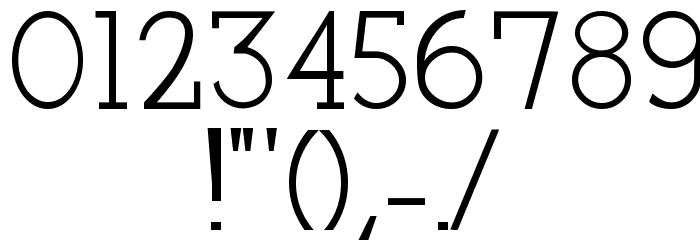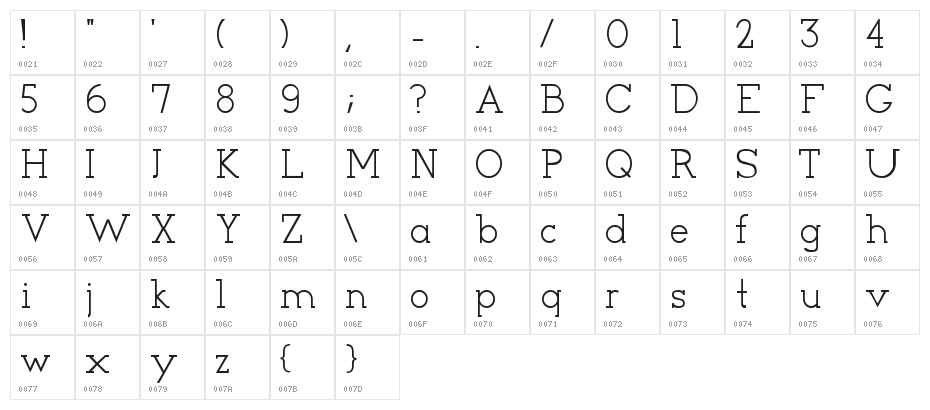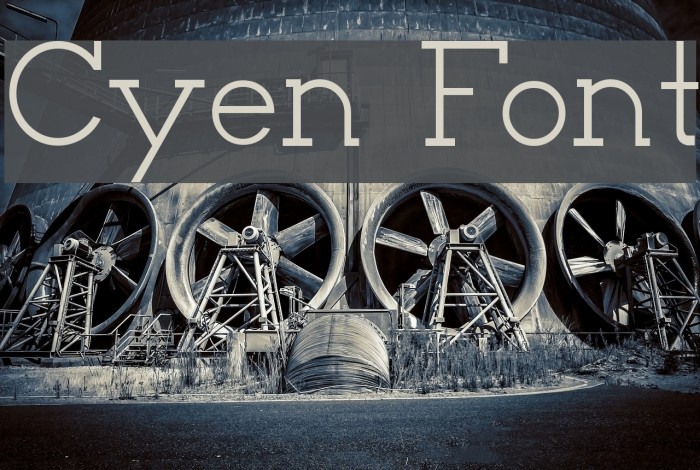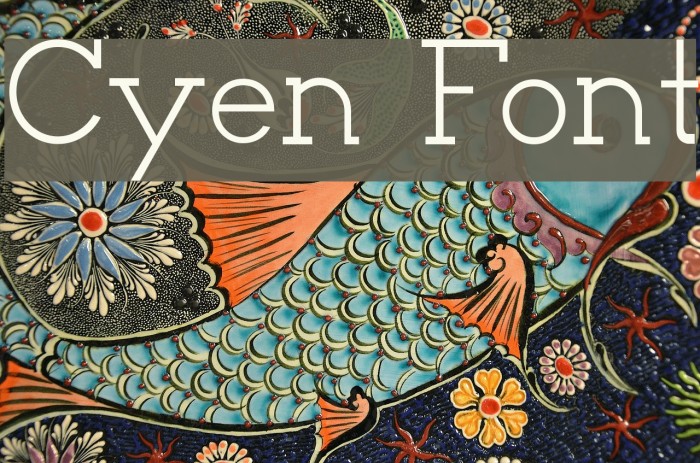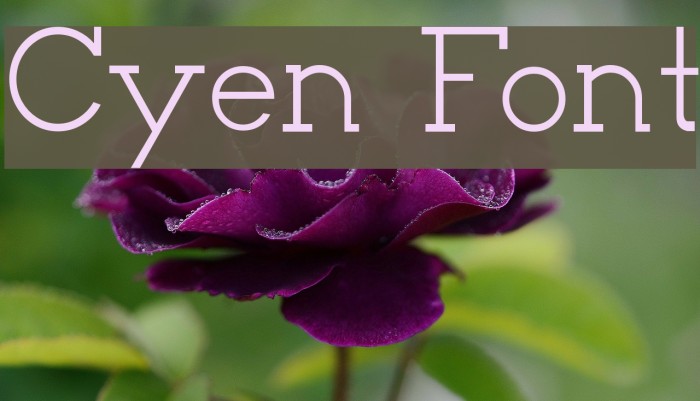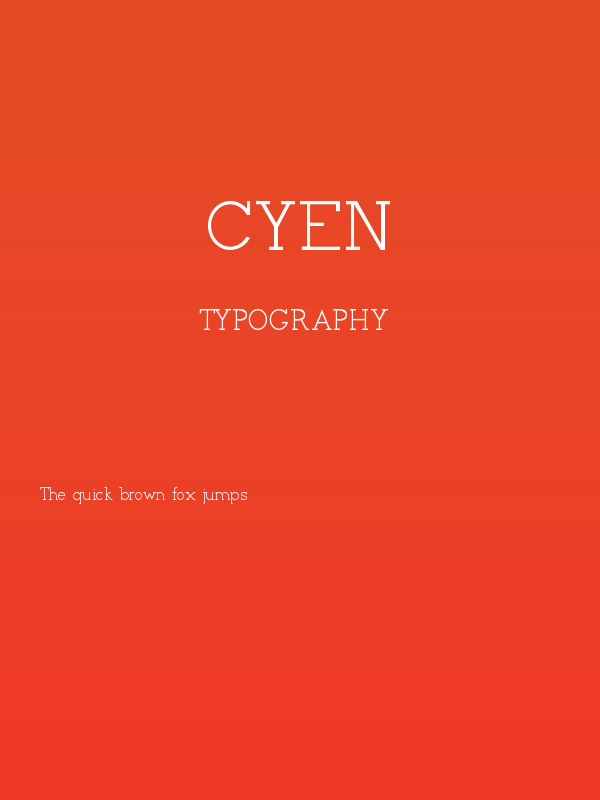
Cyen Font
Cyen Description
This font features a clean and modern design with a geometric structure. The characters are well-balanced, with a consistent stroke width that gives it a uniform appearance. The uppercase letters are bold and striking, while the lowercase letters maintain a smooth and approachable feel. The numerals are clear and legible, making them suitable for a variety of applications. Special characters are designed with the same attention to detail, ensuring they integrate seamlessly with the rest of the font. Overall, this font exudes a sense of professionalism and clarity, making it ideal for both digital and print media.